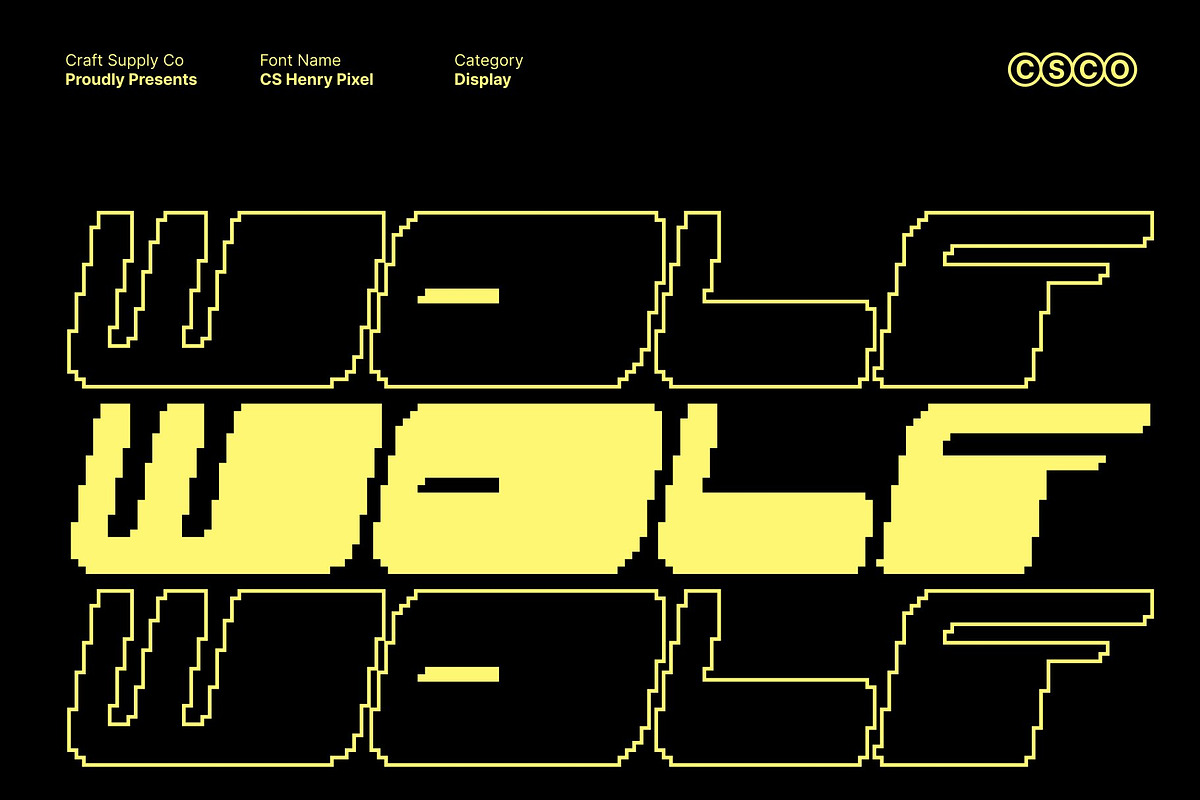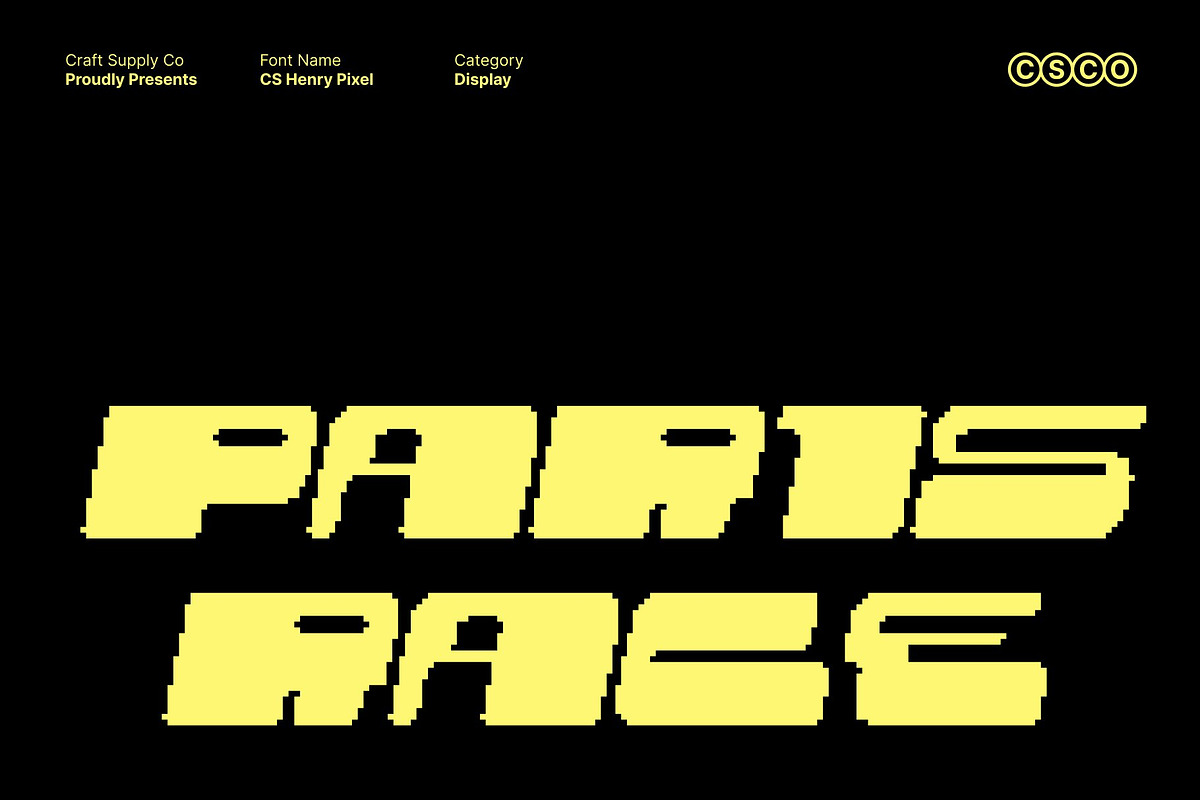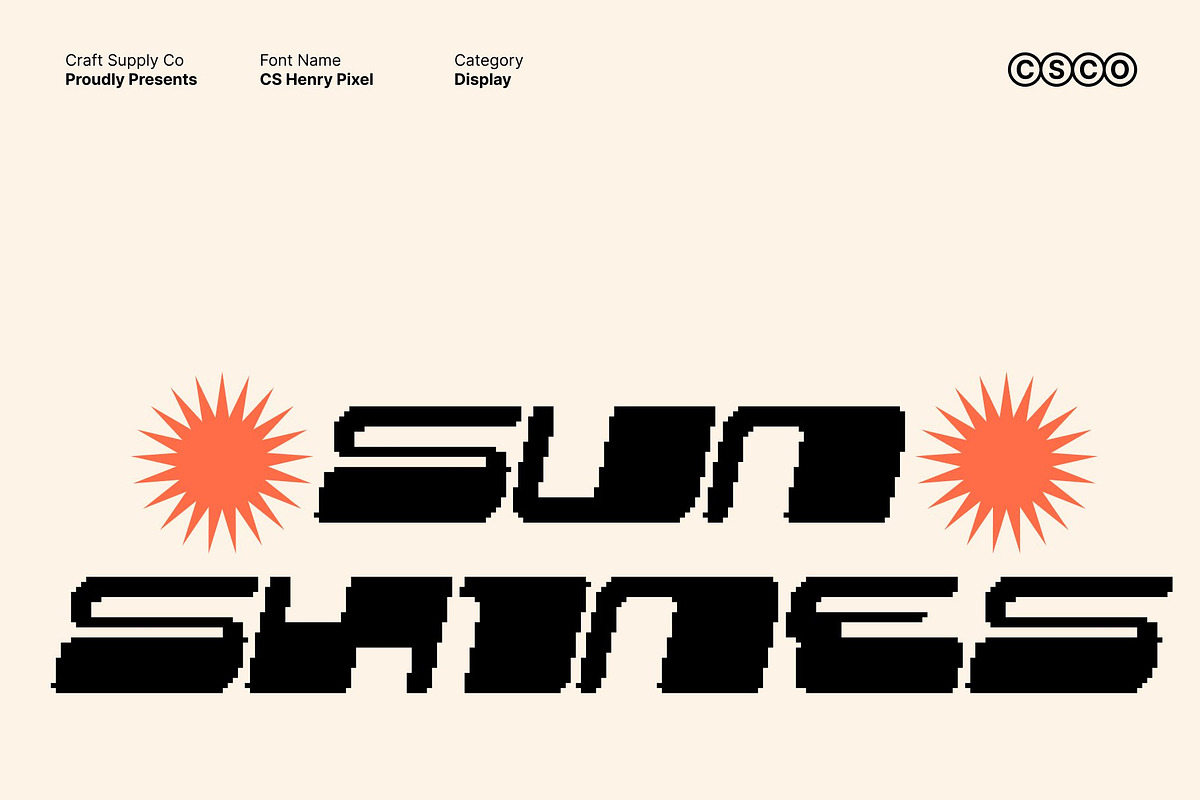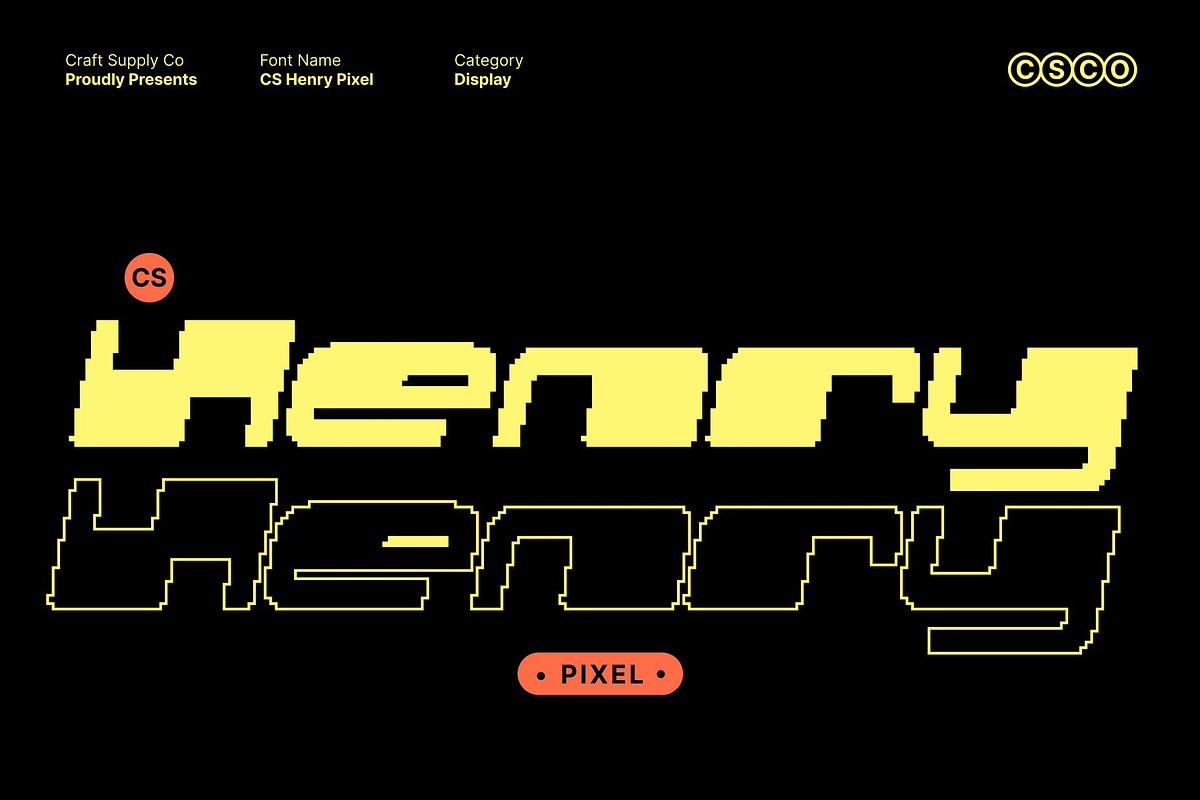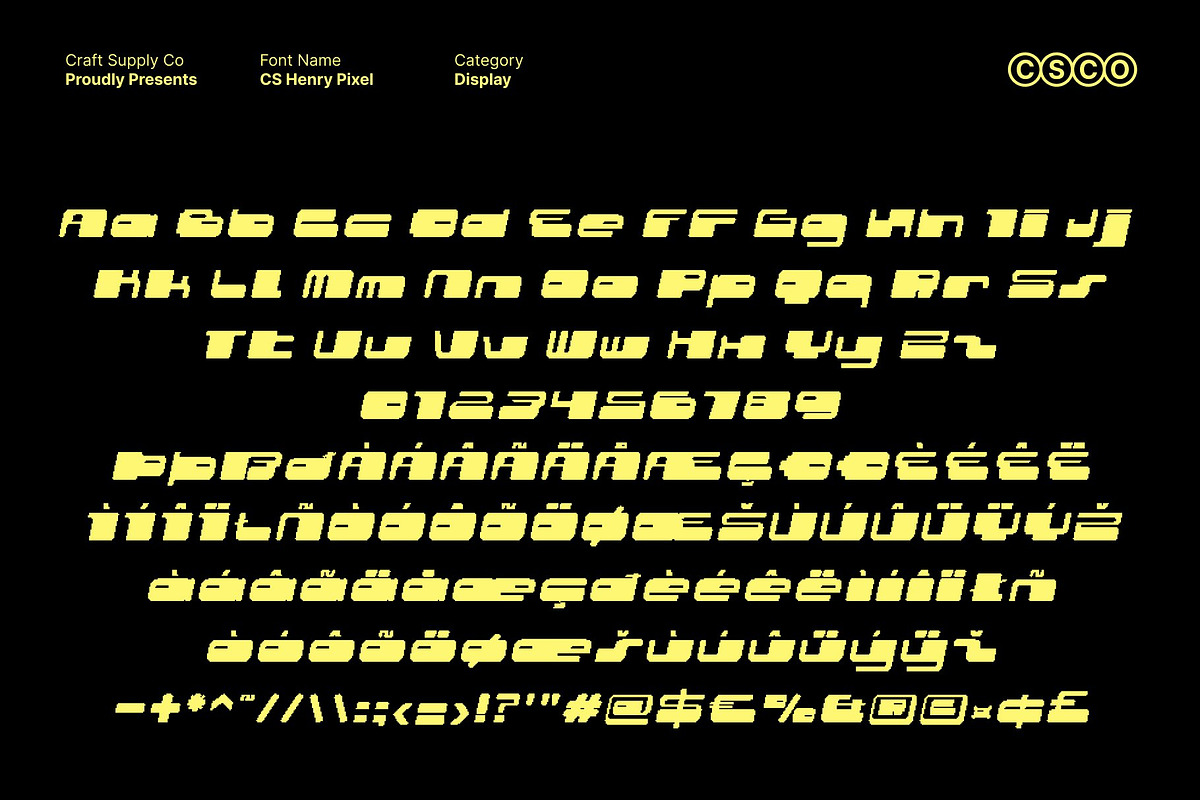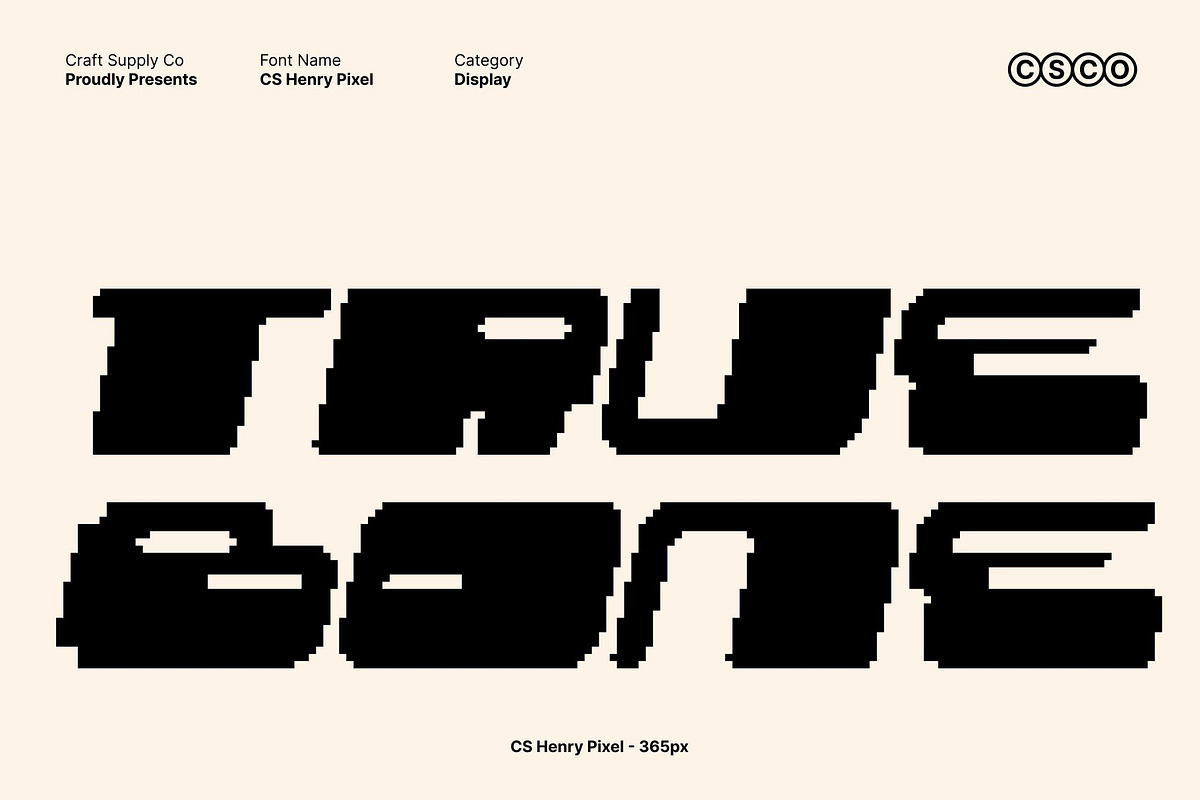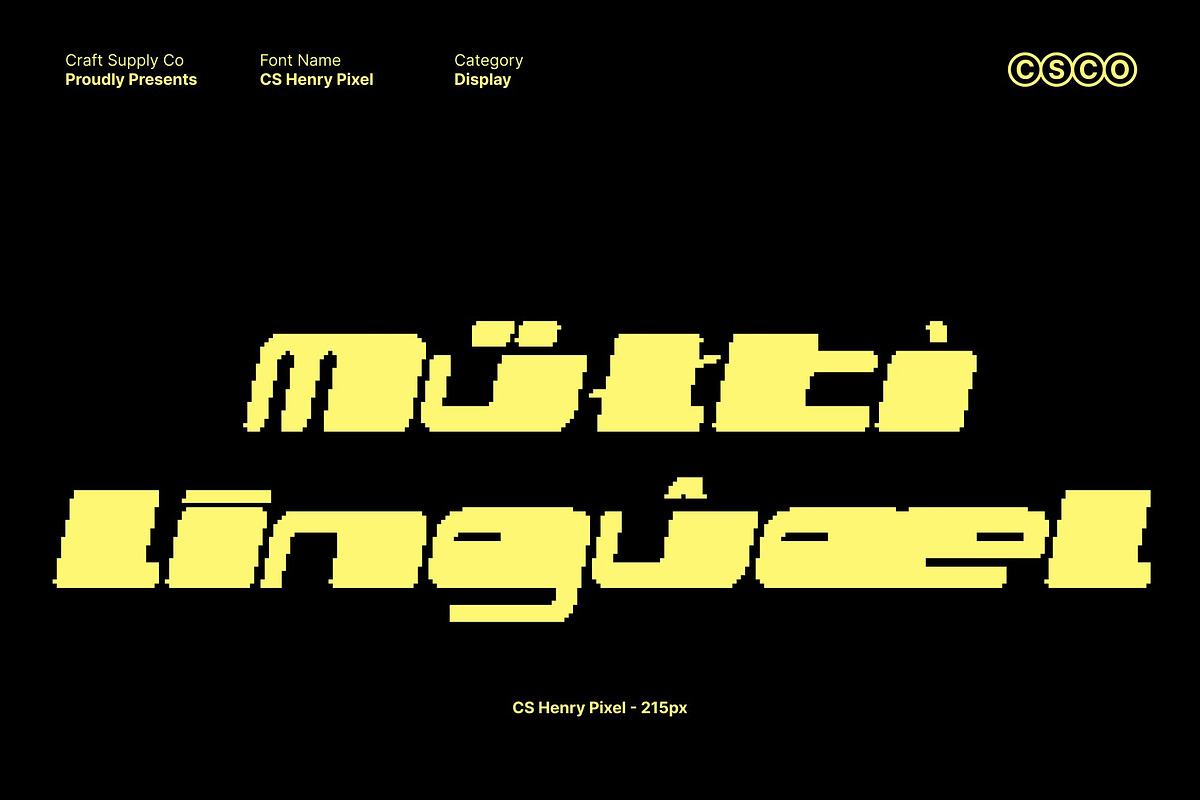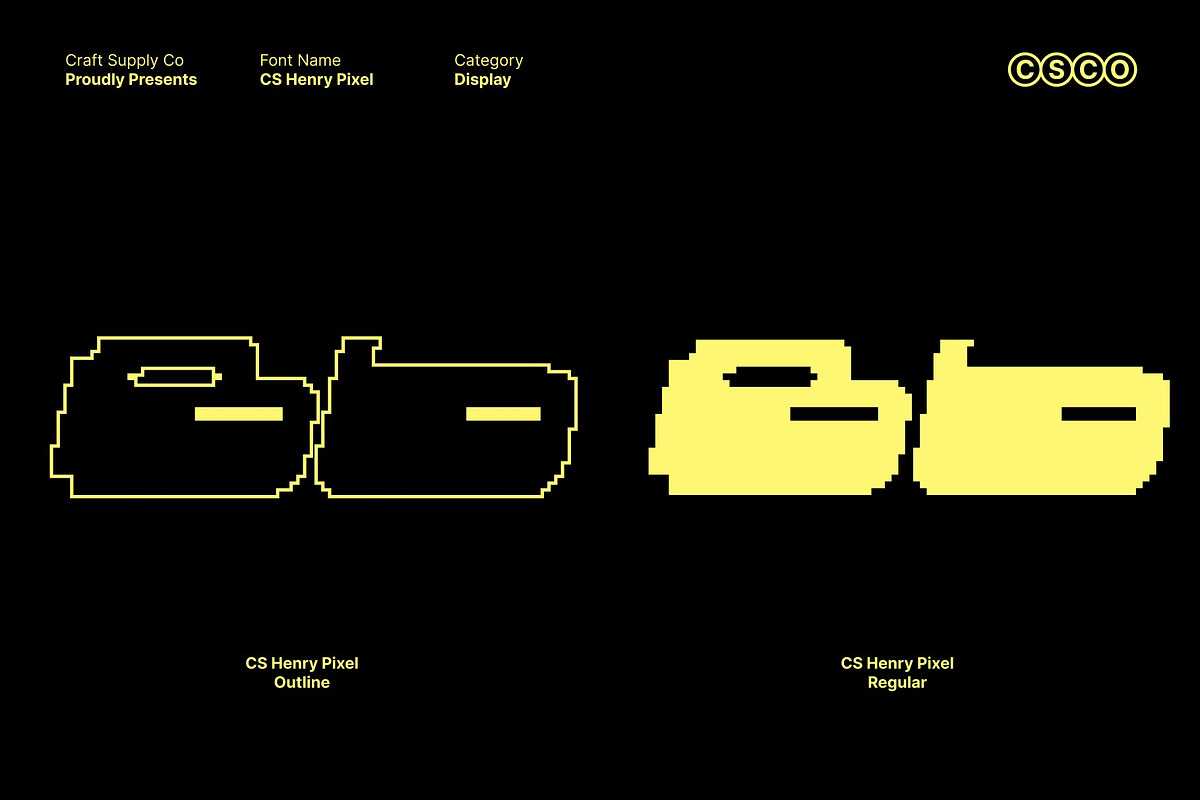
CS Henry Pixel
CS Henry Pixel – Y2K Display Font with Futuristic Energy Shimmering, Playful, and Bold
Distinctive Pixelated Characters This font features eye-catching pixel-based letterforms that instantly capture attention. Each character is built from crisp bitmap blocks, creating a strong visual identity rooted in digital aesthetics.
Futuristic Y2K Style with Retro Digital Vibes Inspired by the Y2K era and early digital culture, this font delivers a nostalgic 8-bit impression combined with futuristic energy. Sharp corners, rigid geometry, and a structured pixel grid evoke classic video games and old-school technology.
Bold Bitmap Structure As a true bitmap-style font, this font embraces a mechanical and technological feel. Its solid construction and angular forms make it perfect for designs that celebrate retro computing and digital experimentation.
Ideal for Digital Branding, Music, and Party Graphics Perfect for digital branding, music visuals, posters, party graphics, and tech-inspired designs, this font brings playful intensity and retro-futuristic charm to any creative project.
CS Henry Pixel Regular
CS Henry Pixel Outline